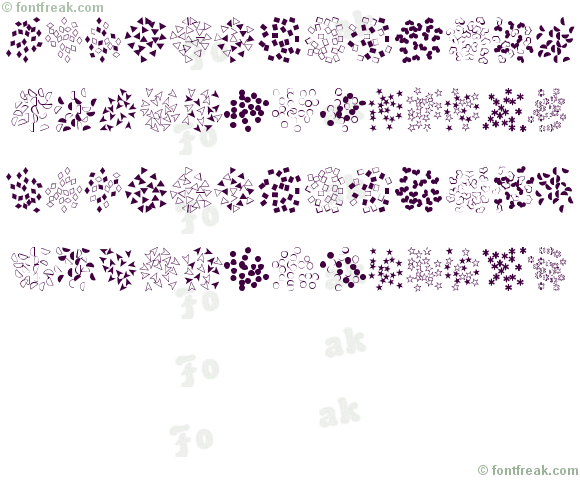
FE-Confetti
About FE-Confetti
FE-Confetti is a playful and dynamic decorative font developed by Font Environment. This unique typeface falls into the category of display fonts, designed to capture attention and evoke a sense of celebration. Its visual characteristics include a variety of shapes, such as triangles, circles, and squares, presented in a whimsical and scattered manner. The font features a consistent stroke weight, providing a balanced appearance, while its lack of strict alignment adds a sense of spontaneity and fun.
The versatility of the FE-Confetti font makes it ideal for various use cases. It can be effectively utilized in party invitations, where its playful nature can set the perfect tone for celebrations. Additionally, this font works wonderfully for event posters, particularly for music festivals, children's events, or any vibrant gathering. Restaurant menus can also benefit from FE-Confetti, especially for establishments looking to convey a lively atmosphere. Furthermore, it can enhance branding for small businesses aiming to attract a youthful and energetic clientele, making it a great choice for logos and product packaging.
Target audiences for FE-Confetti include graphic designers, small business owners, and content creators who are in search of an engaging typeface that stands out. Its unique design offers a distinctive flair that can elevate visual communication across various platforms.
What truly sets the FE-Confetti font apart is its ability to infuse joy and excitement into any project. By opting for this font, users can create eye-catching designs that not only convey their message but also evoke a sense of celebration and creativity. For those eager to enhance their projects, the FE-Confetti font free download is an excellent opportunity to incorporate this lively typeface into their design toolkit.